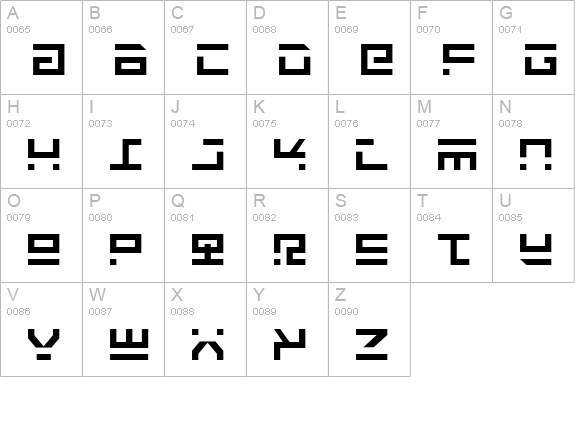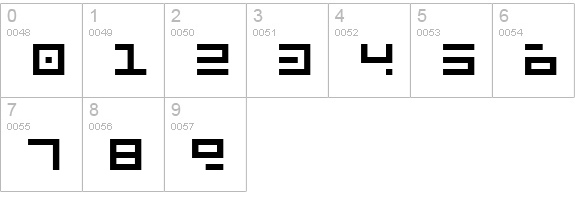
Introducing Rocket Type font, a sleek and modern typeface that will take your designs to new heights. With its futuristic look and sharp edges, Rocket Type is perfect for creating bold and eye-catching graphics. Whether you're designing a poster, logo, or website, this font will give your project a touch of sophistication and style. Best of all, Rocket Type is available for free download at FontsMarket.com. That's right, you can add this stunning font to your collection without spending a dime. Don't miss out on this fantastic opportunity to elevate your designs with Rocket Type font. Download it today and start creating stunning visuals that will leave a lasting impression.